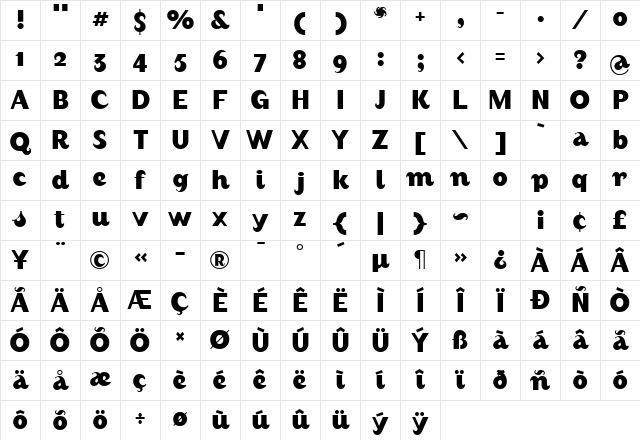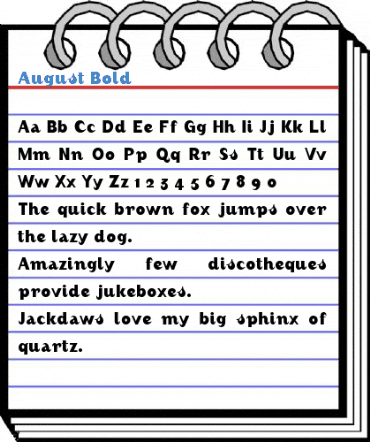
Complete AugustBoldAlternate Regular glyph index. Displaying only characters natively supported by AugustBoldAlternate Regular font.
AugustBoldAlternate is a composed and adaptable typeface that performs quietly and consistently across a wide range of design contexts. Its bold stroke weight gives it real presence on the page.